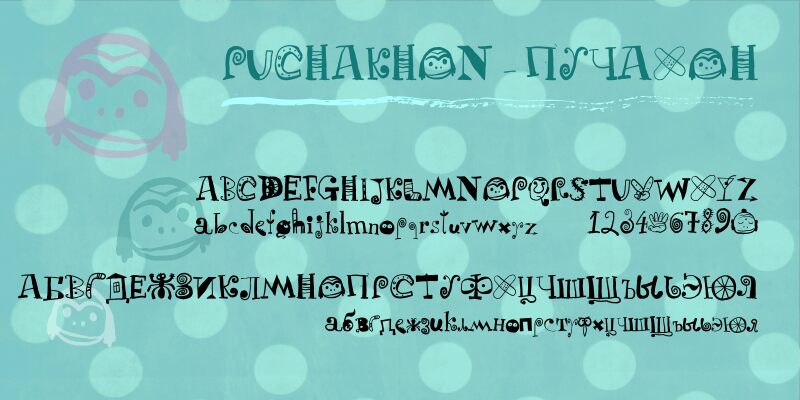
Puchakhon Light 07, designed by A.Z. of Fine Line Progressive Decorating Band, is a free decorative cartoon font with tall, uneven letters and a lively ink-drawn silhouette. Changing stroke widths, crooked edges, and recurring picture details turn the alphabet into a small cast of props and creatures, including spirals, leaves, faces, and ladder-like bars.
Those built-in motifs let the lettering mingle directly with simple illustration on children's book covers, classroom posters, and game graphics. Children are the clearest audience for its visual jokes. The odd little faces and plant shapes also suit craft packaging and party materials centered on handmade comedy or make-believe worlds.